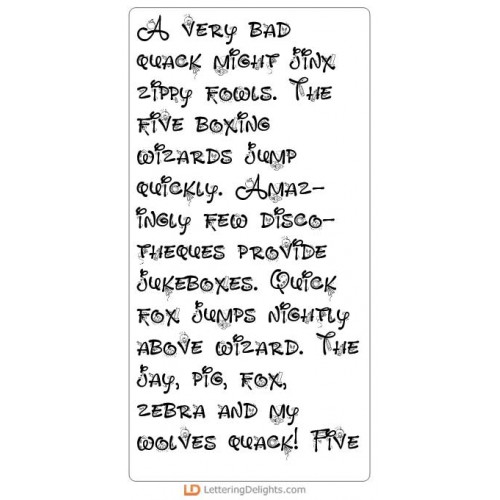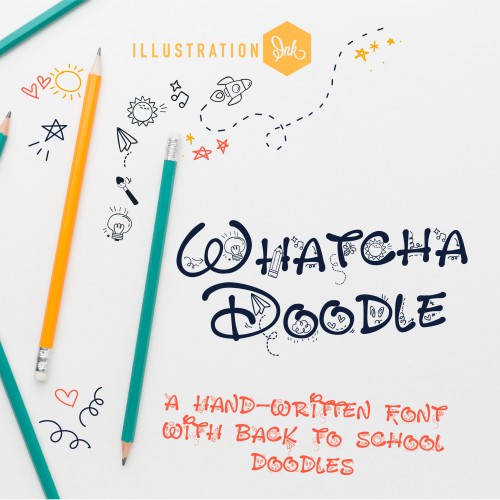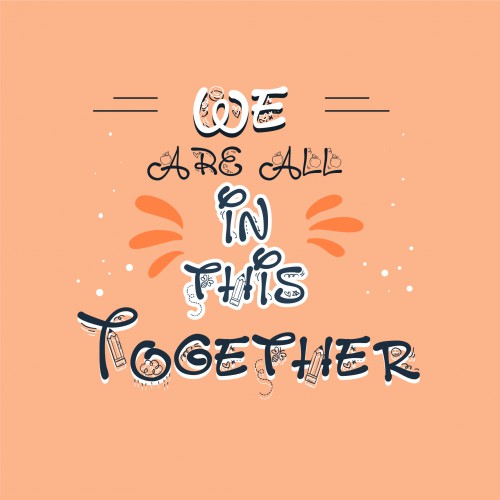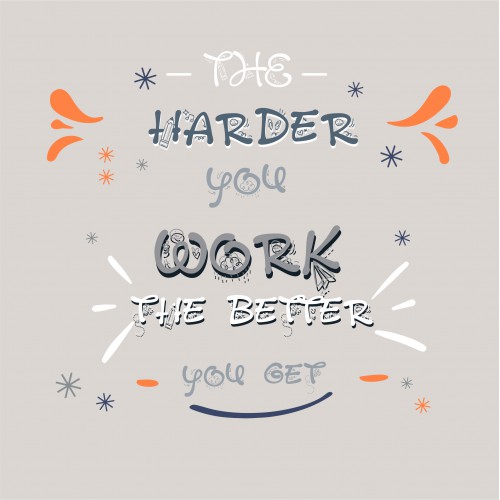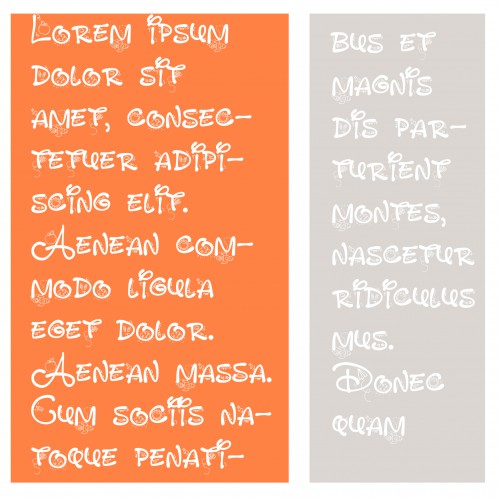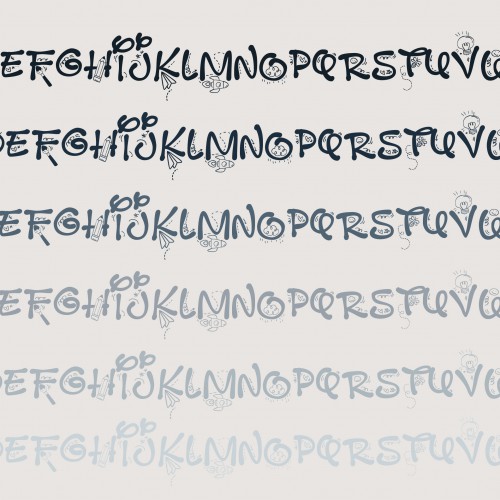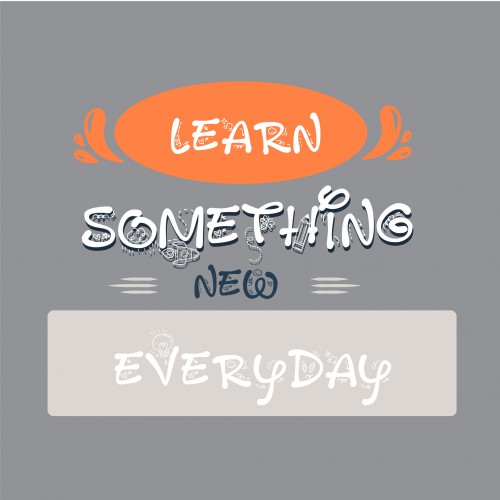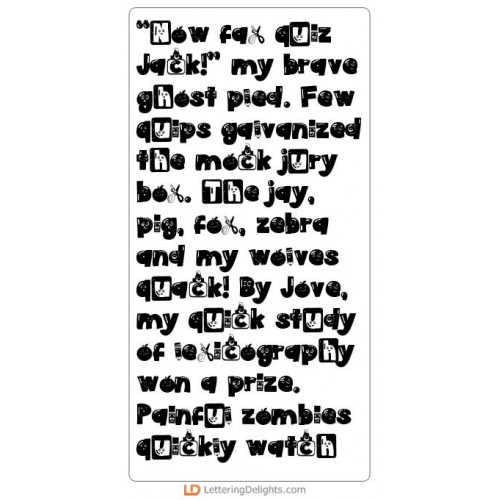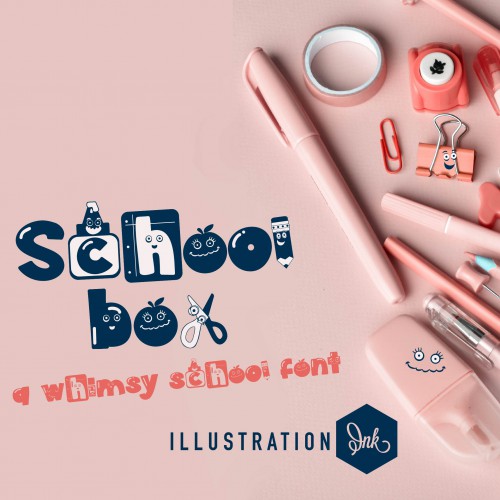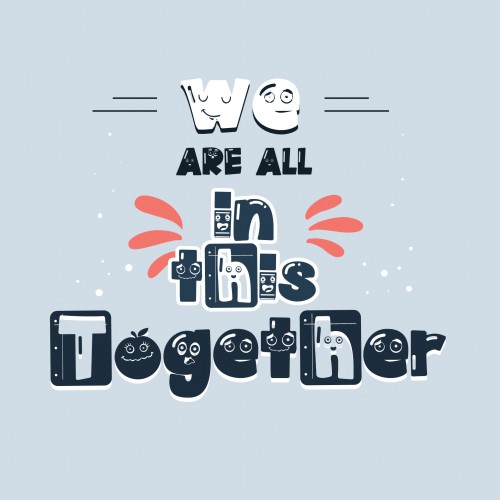
Sch-doodle - Font Bundle
This fun school bundle features ten all new, school-influened fonts.
• ZP Whatcha Doodling - FN
• PN School Box - FN
• PN Crayonz - FN
• ZP Schoolbook Scribble - FN
• PN McPencil - FN
• PN Report Card - FN
• PN First Day - FN
• PN Hangman 3D - FN
• ZP Krayola - FN
• PN School Rules - FN
ZP Whatcha Doodling - FN
This hand-written font sports school doodles throughout...
PN School Box - FN
This cute font has several school supplies and many fun faces throughout...
PN Crayonz - FN
This font is heavily infuenced by crayon wrappers..
ZP Schoolbook Scribble - FN
This hand-written outline font is scribbled in and sports a few pencil doodles...
PN McPencil - FN
This hand-crafted font features adorable pencils throughtout...
PN Report Card - FN
This hand-crafted font features report card imagery throughout the blocky lettering...
PN First Day - FN
This whimsical font features apples...
PN Hangman 3D - FN
This blocky, hand-written font features a whimsical 3d dimension...
ZP Krayola - FN
This whimsical, hand-crafted font has many crayon-like letters...
PN School Rules - FN
This hand-written print has several doodled letters that look like school supplies...